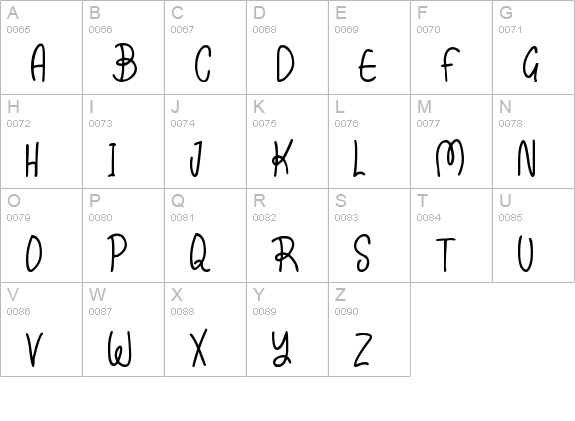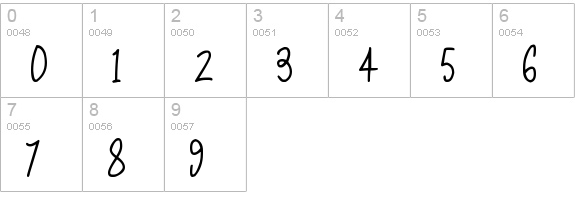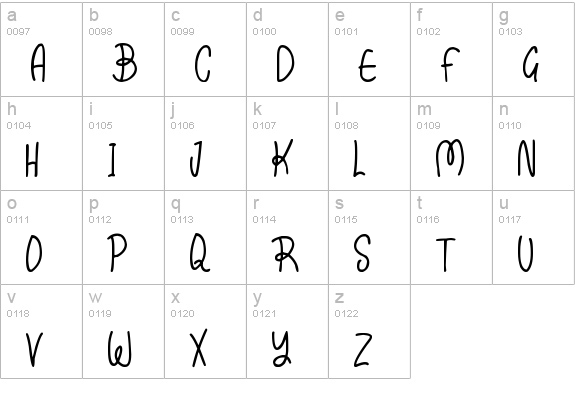
Kissy Font Details
Kissy is a free for personal use font in the Script > Handwritten category, designed by Darrell Flood. It has been downloaded 48 times and is available for Windows, Mac and Linux.
Kissy font is a charming and playful typeface that exudes a sense of warmth and friendliness. Its soft, rounded edges and delicate curves give it a gentle and inviting appearance, perfect for adding a touch of sweetness to any design project. The Kissy font is versatile and can be used for a variety of purposes, from branding and packaging to social media graphics and invitations.